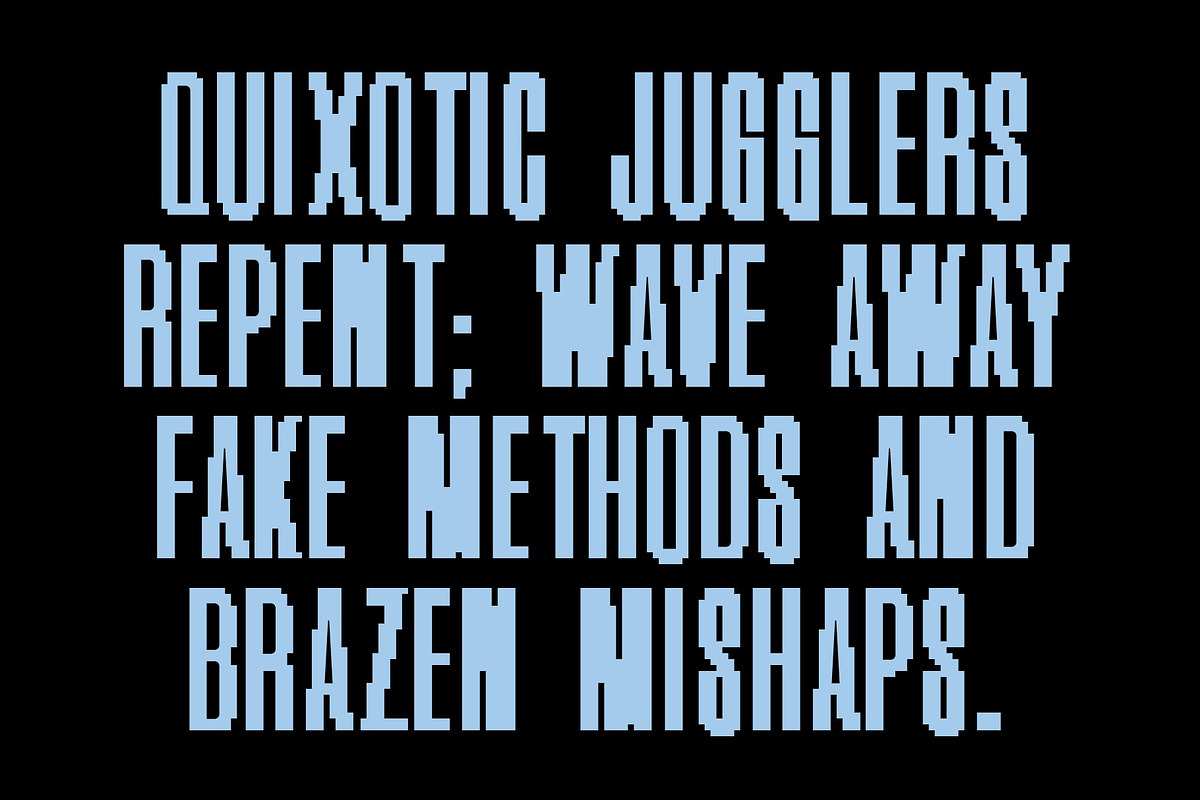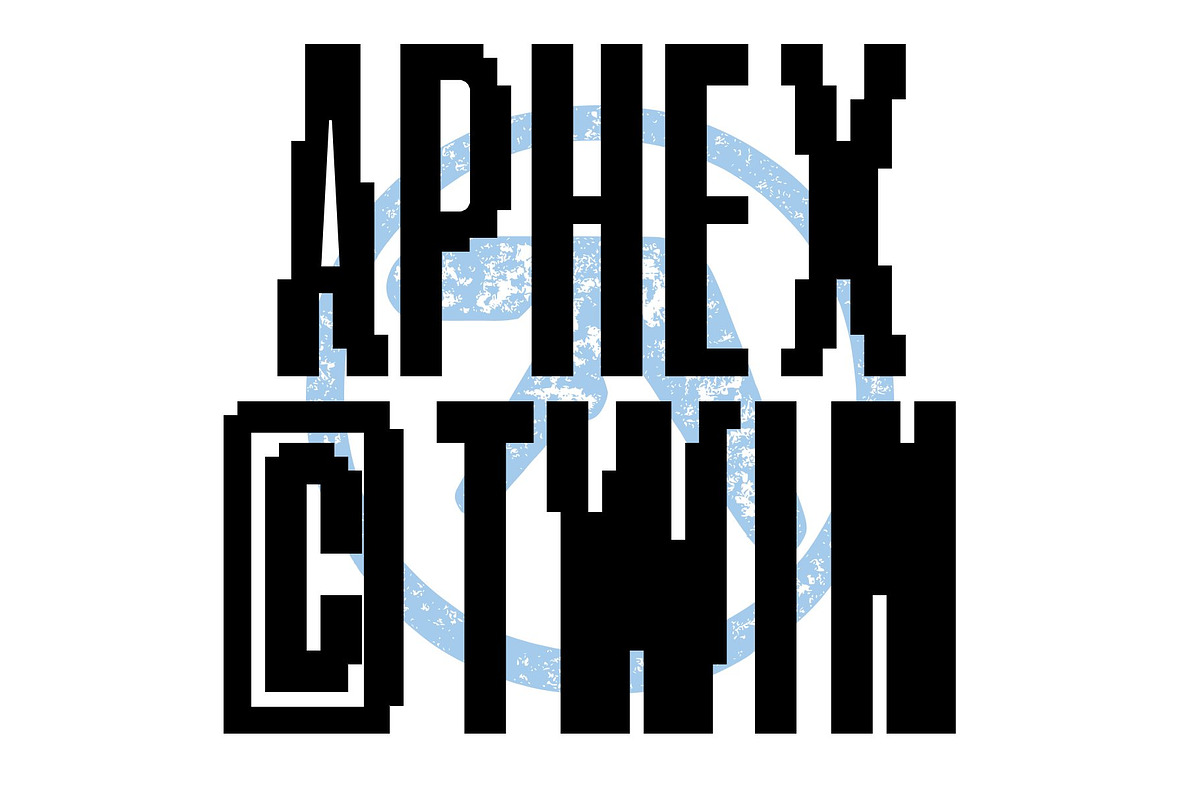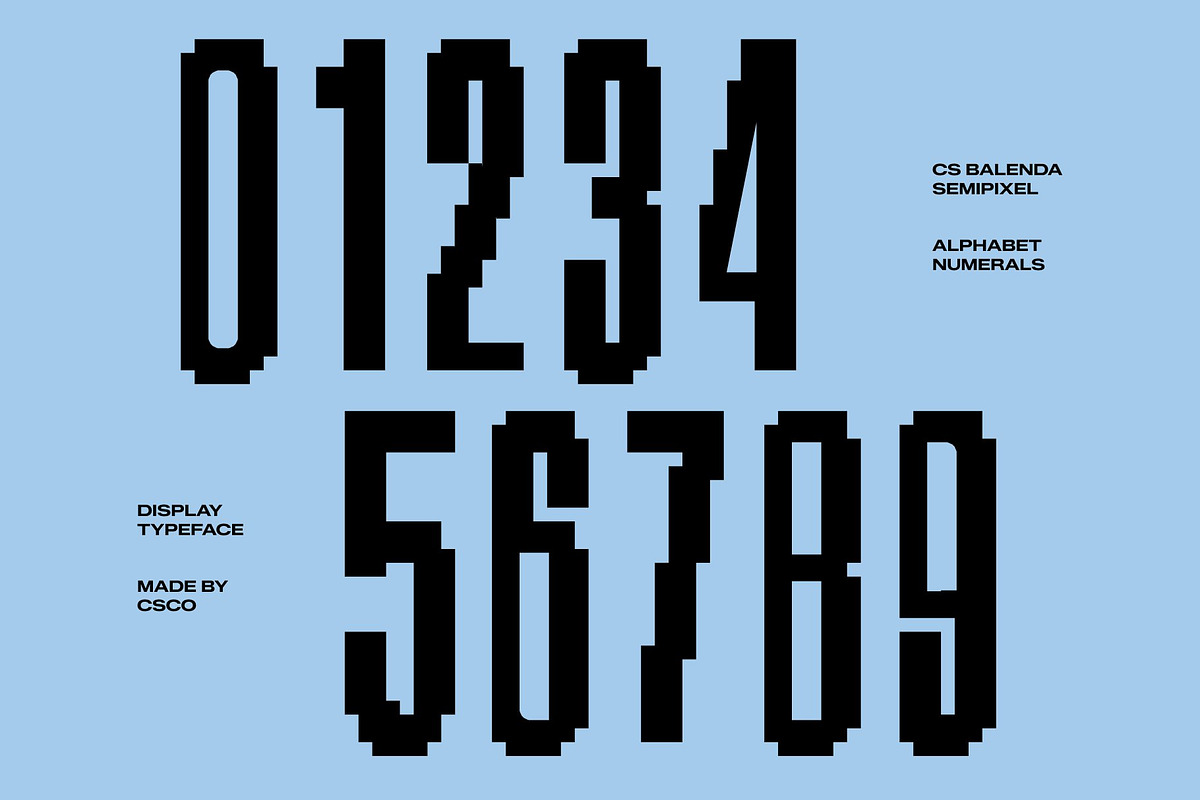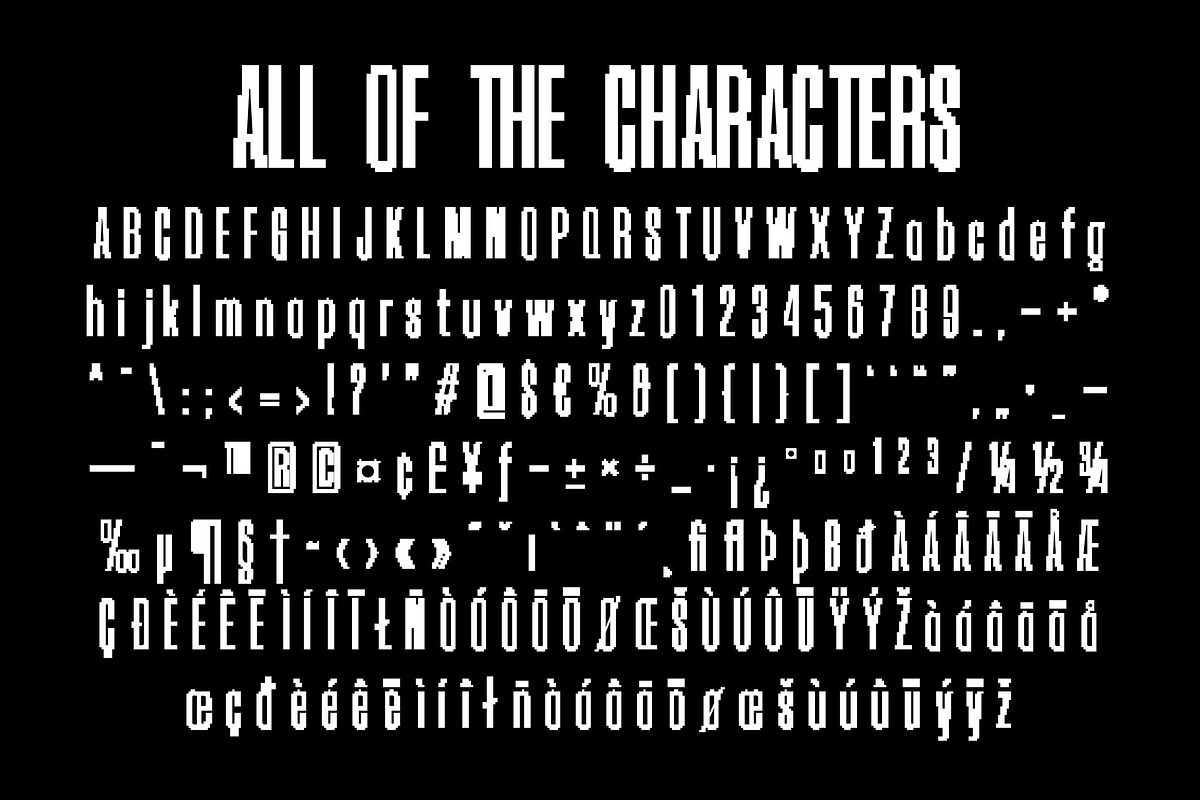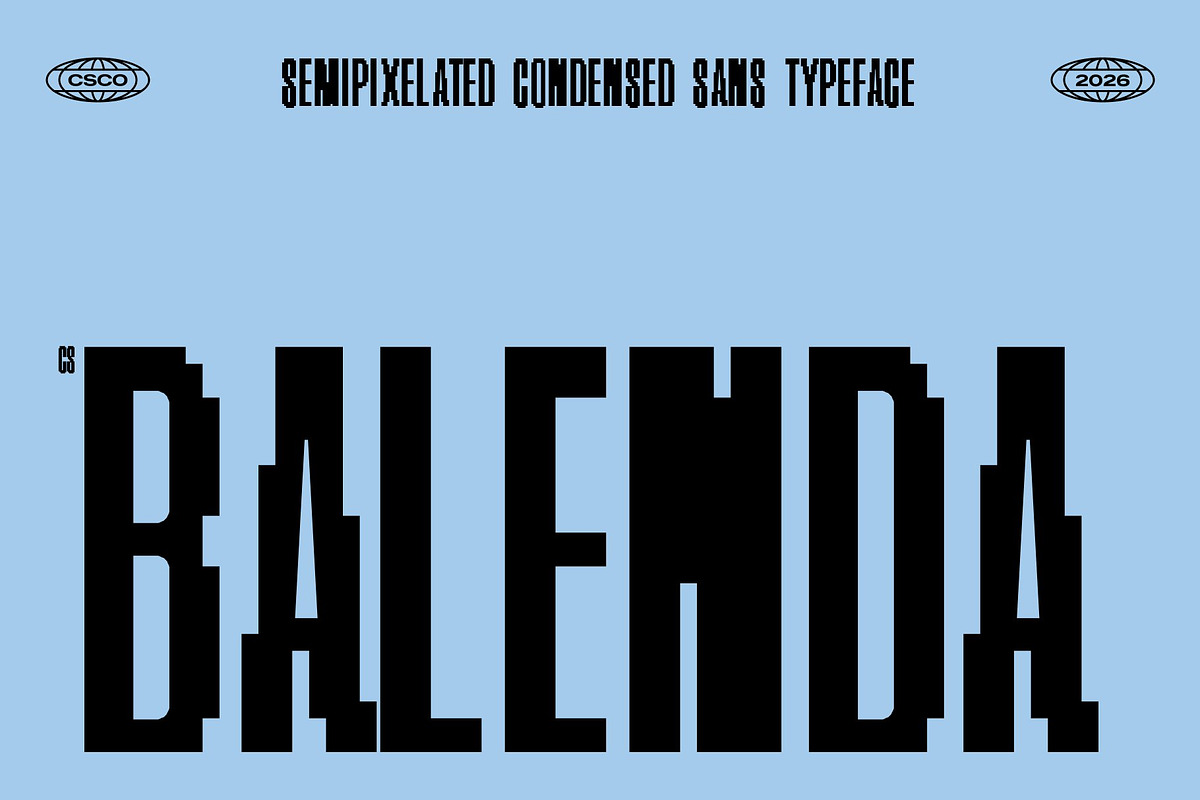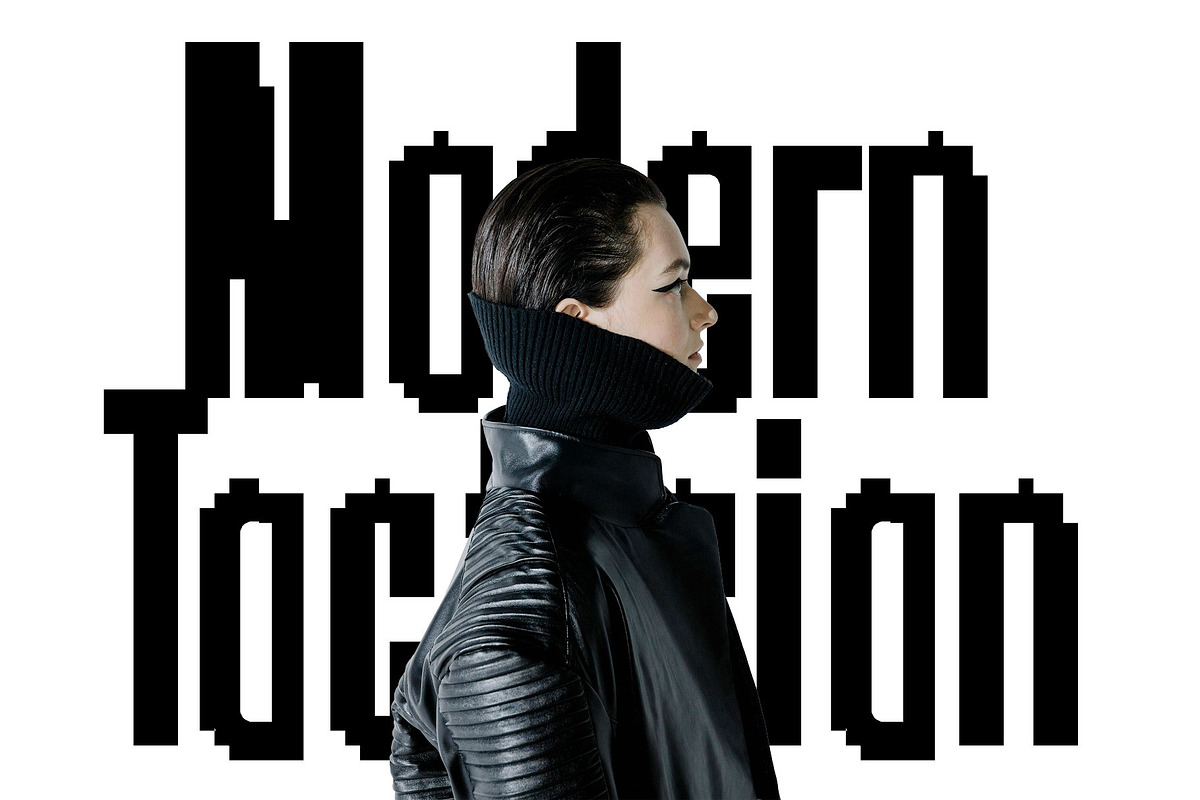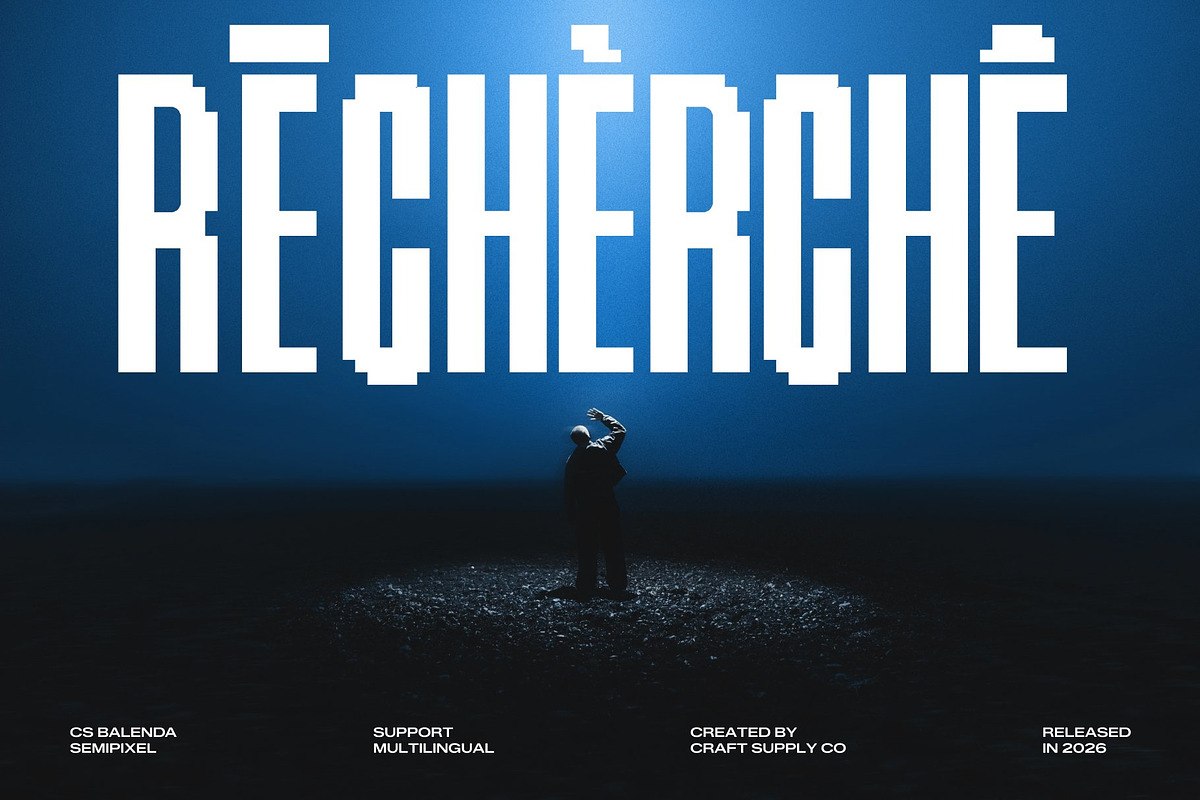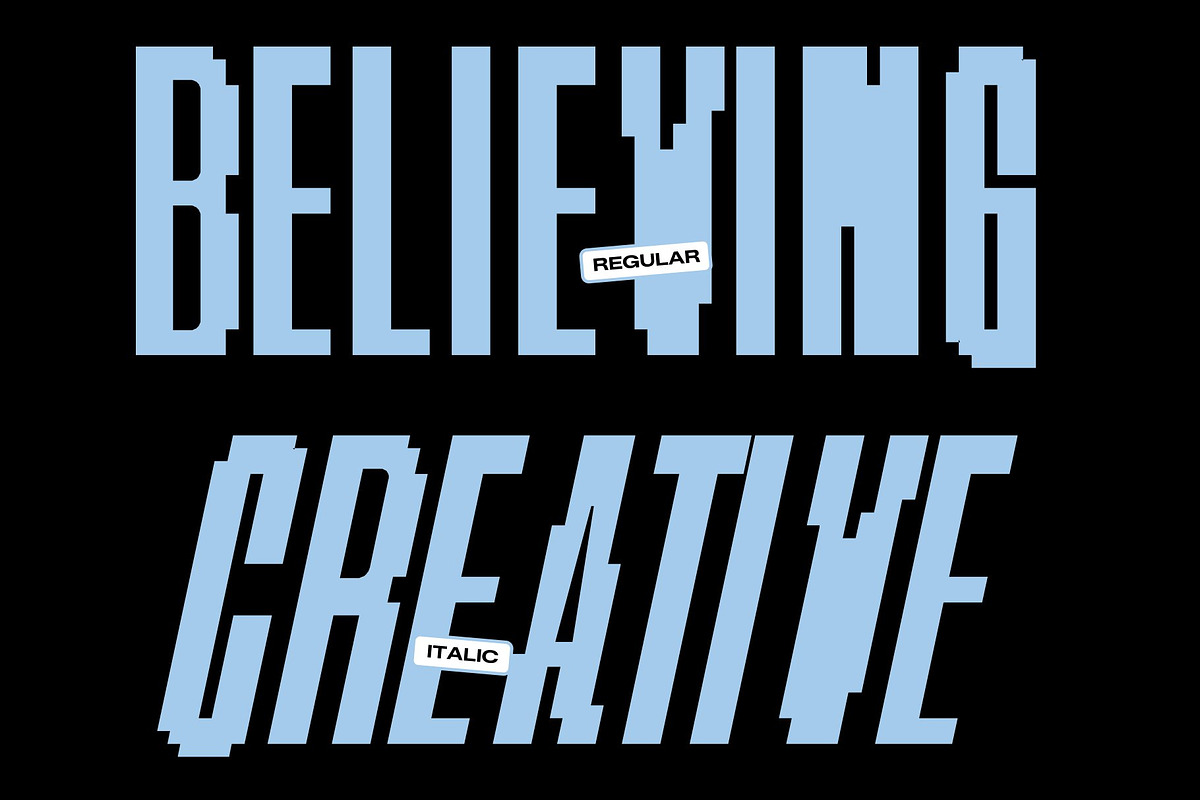
CS Balenda Semipixel
CS Balenda Semipixel – Condensed Modern Sans Serif Font: Where Futuristic Precision Meets Elegant Simplicity
Semi-Pixel Geometry with Smooth Contemporary Curves This is a condensed modern sans serif font that combines semi-pixel square forms with smooth curves and refined contemporary details. Inspired by digital pixel aesthetics yet softened with elegant shaping, the font avoids the rigid appearance of classic pixel typography, resulting in a sleek, modern, and highly readable visual style.
Condensed Structure with Futuristic Appeal This font delivers a strong vertical presence that feels modern, stylish, and space-efficient. Its narrow forms create a striking visual rhythm ideal for impactful layouts, while the balanced curves maintain a clean and elegant appearance. The result is a typeface that feels both technological and sophisticated.
Minimalist High-Tech Style with Modern Versatility This font creates a futuristic aesthetic perfect for creative digital design. Its semi-pixel structure communicates innovation and modernity while remaining approachable and visually polished, making it suitable for both experimental and professional applications.
Perfect for Posters, Magazine Headlines, and Entertainment Visuals This font perfect for tech magazine headlines, posters, club flyers, movie titles, game posters, and futuristic branding projects. Its condensed semi-pixel forms and sleek appearance make it ideal for editorial layouts, digital campaigns, merchandise, and creative visual identities that require a high-tech yet elegant typographic presence.
CS Balenda Semipixel Regular
CS Balenda Semipixel Italic